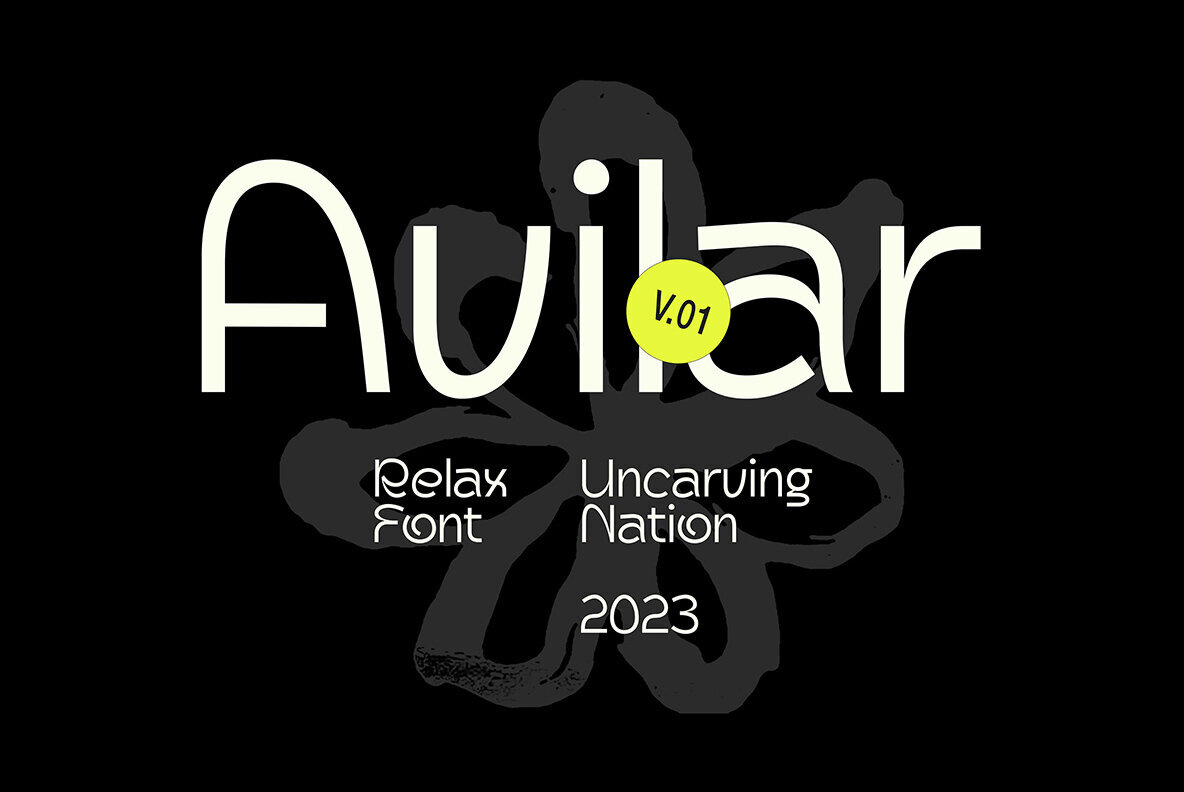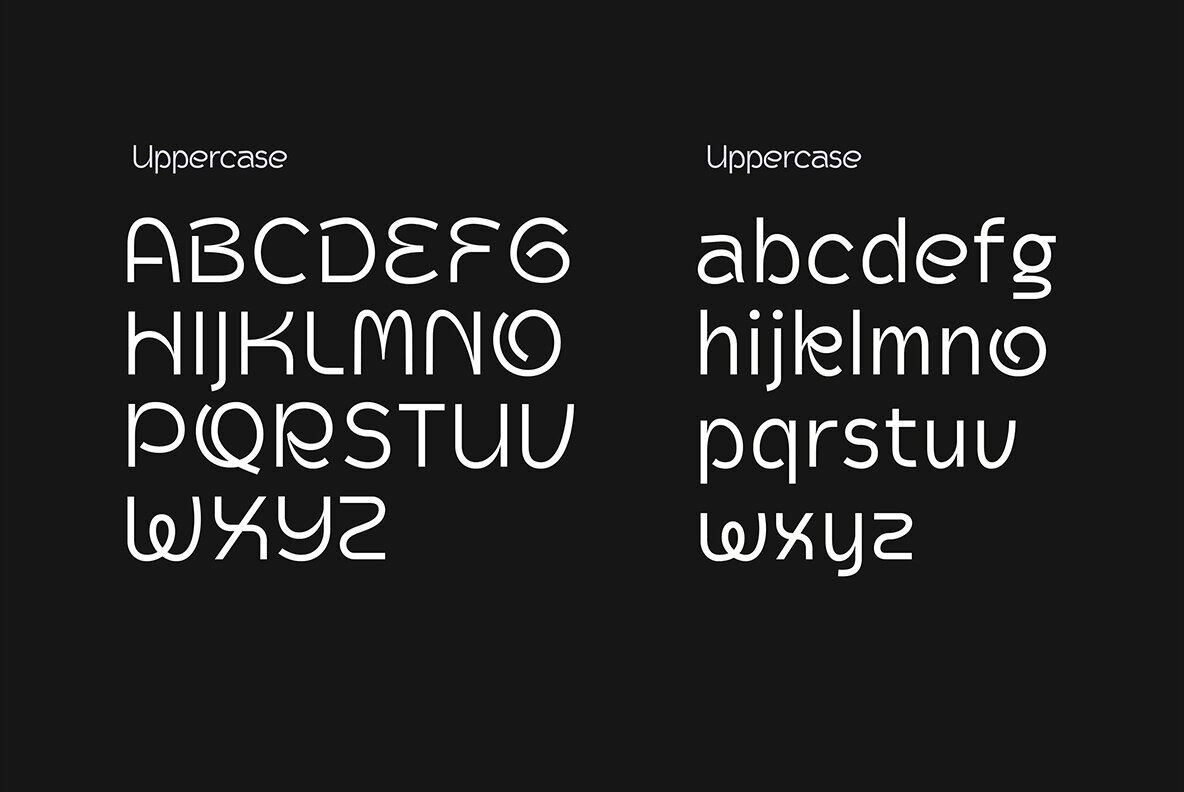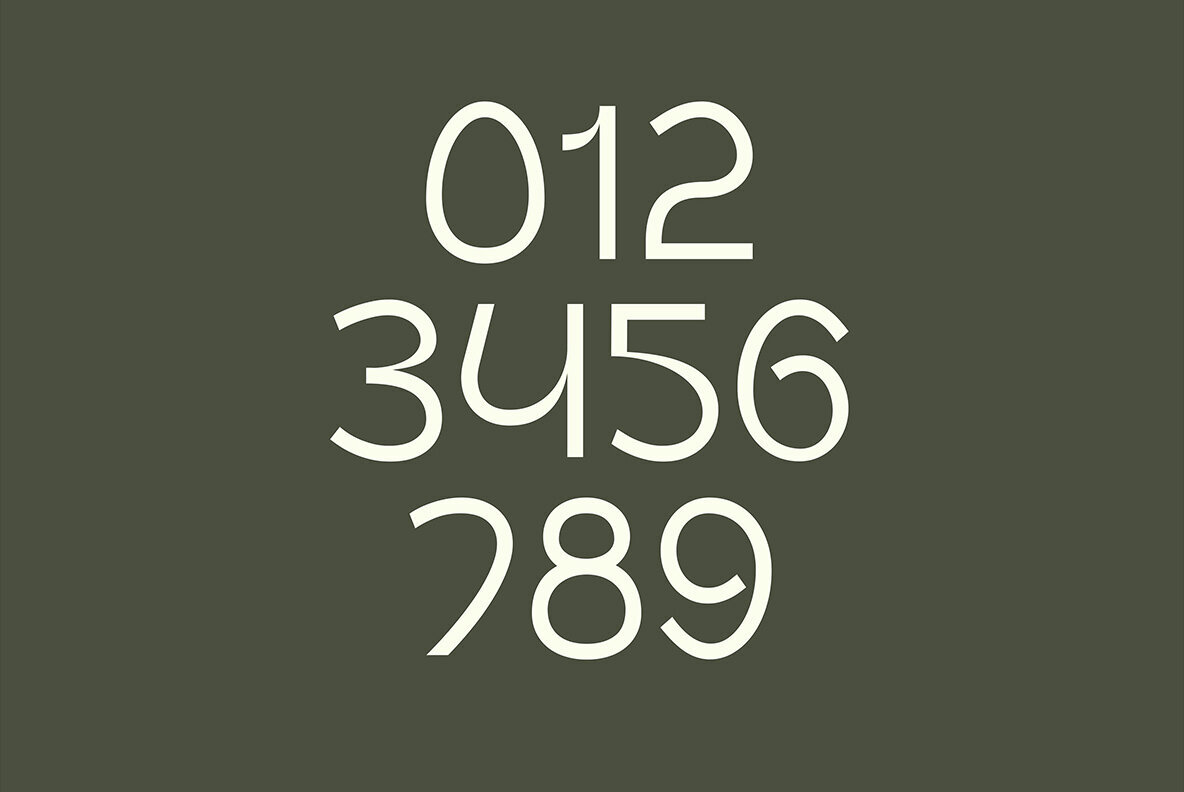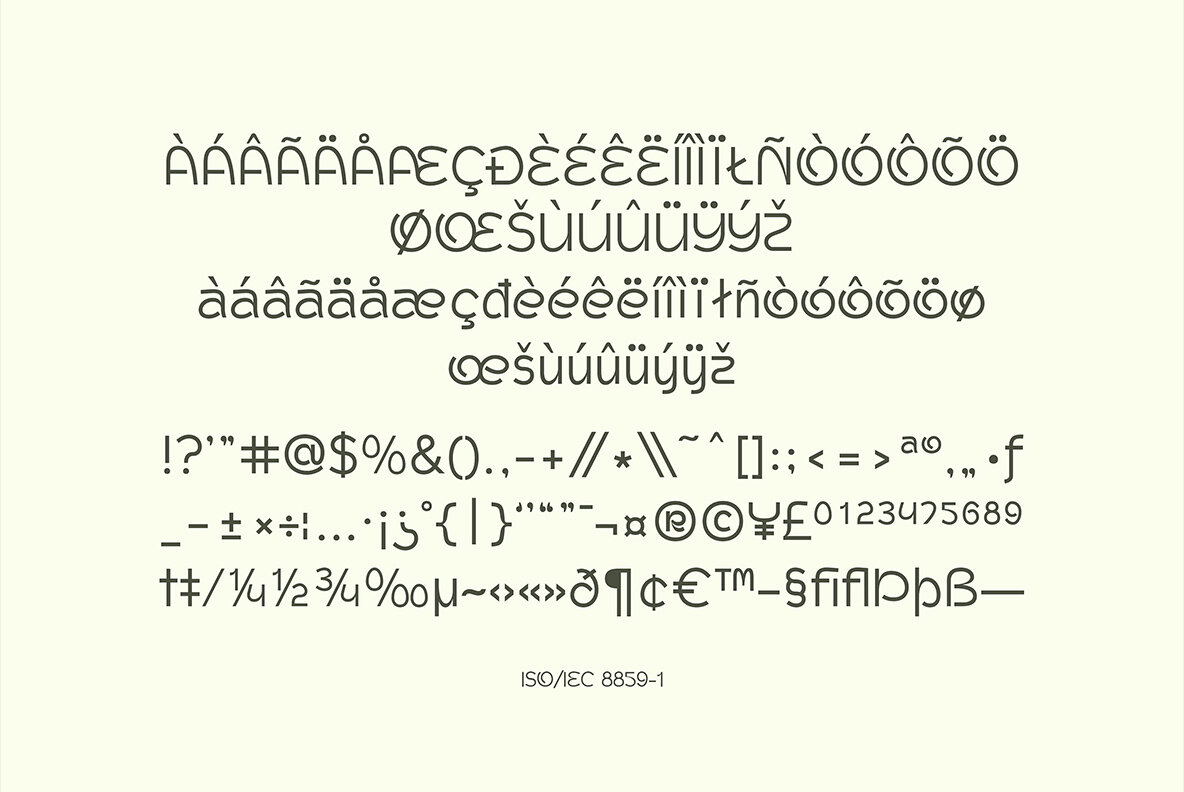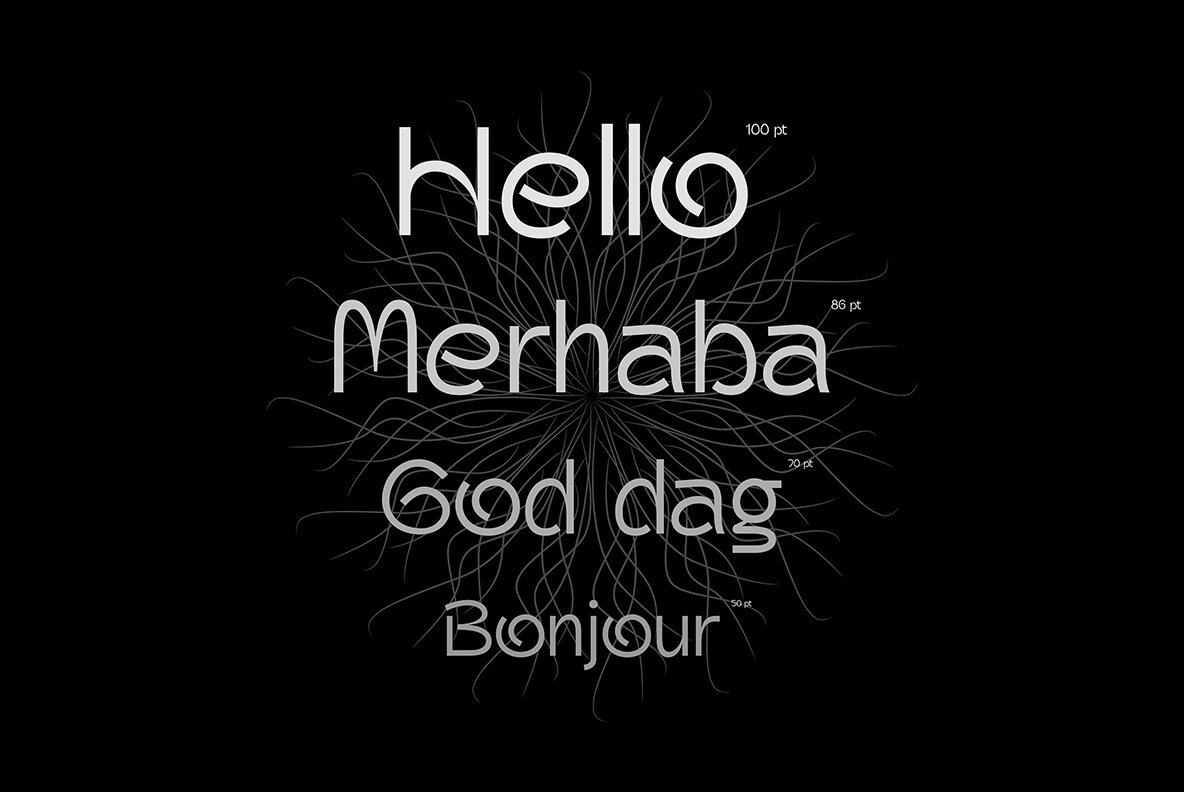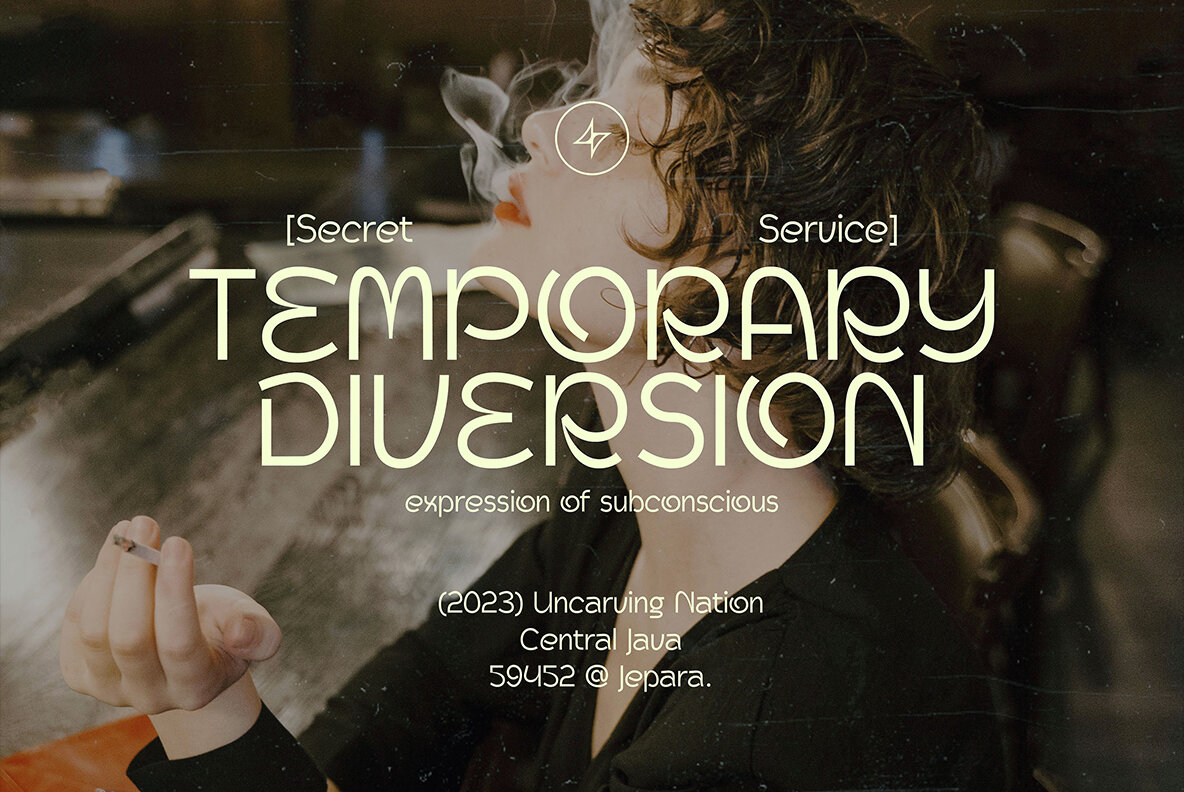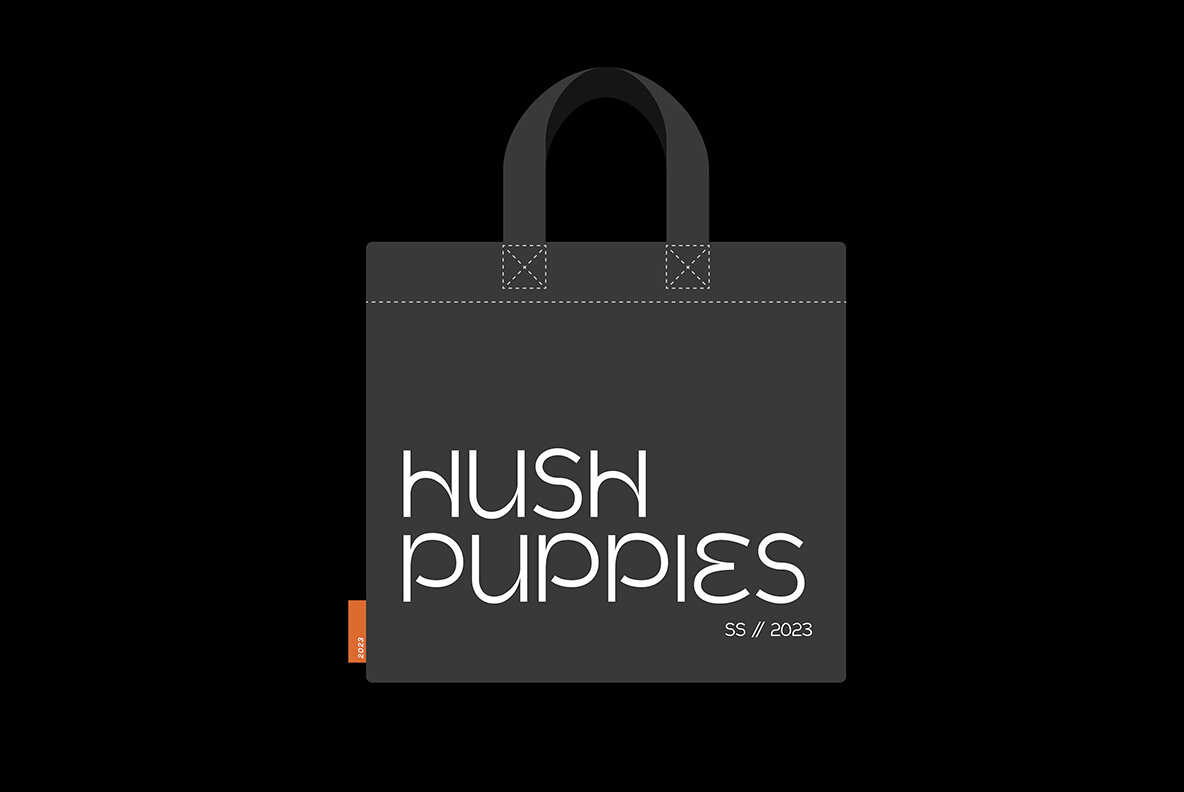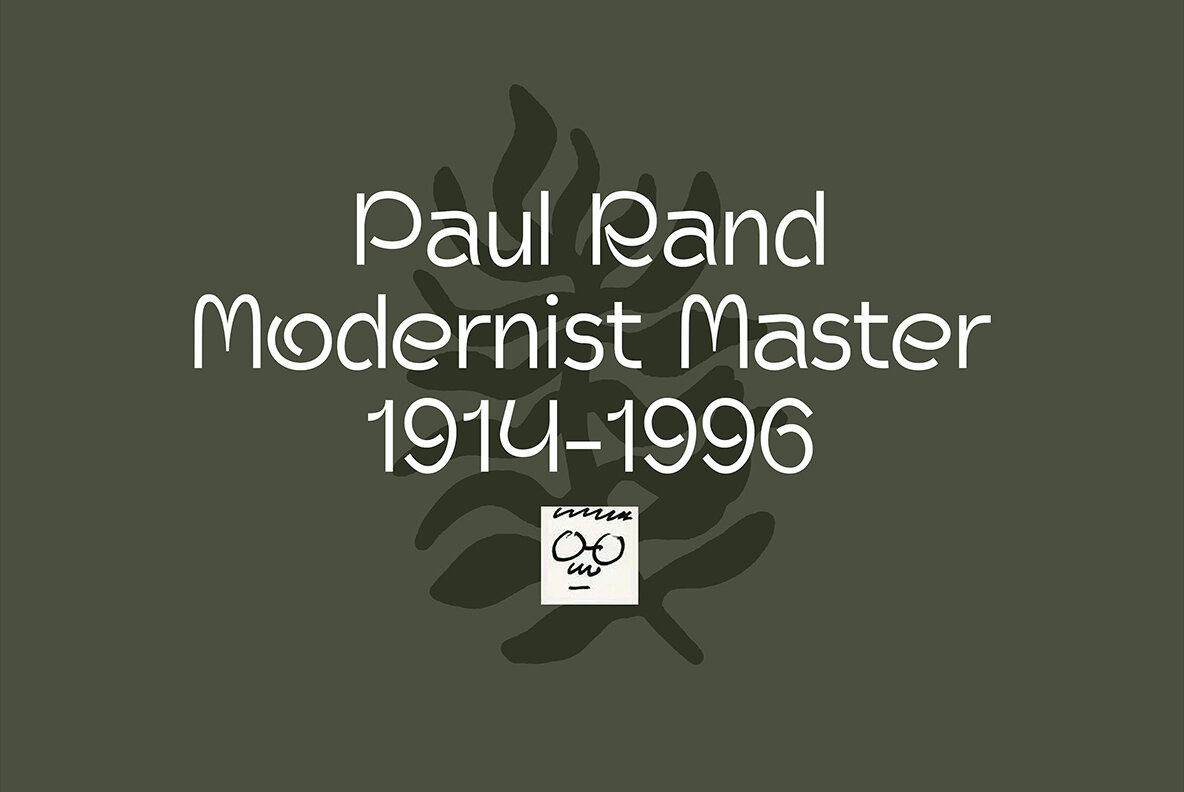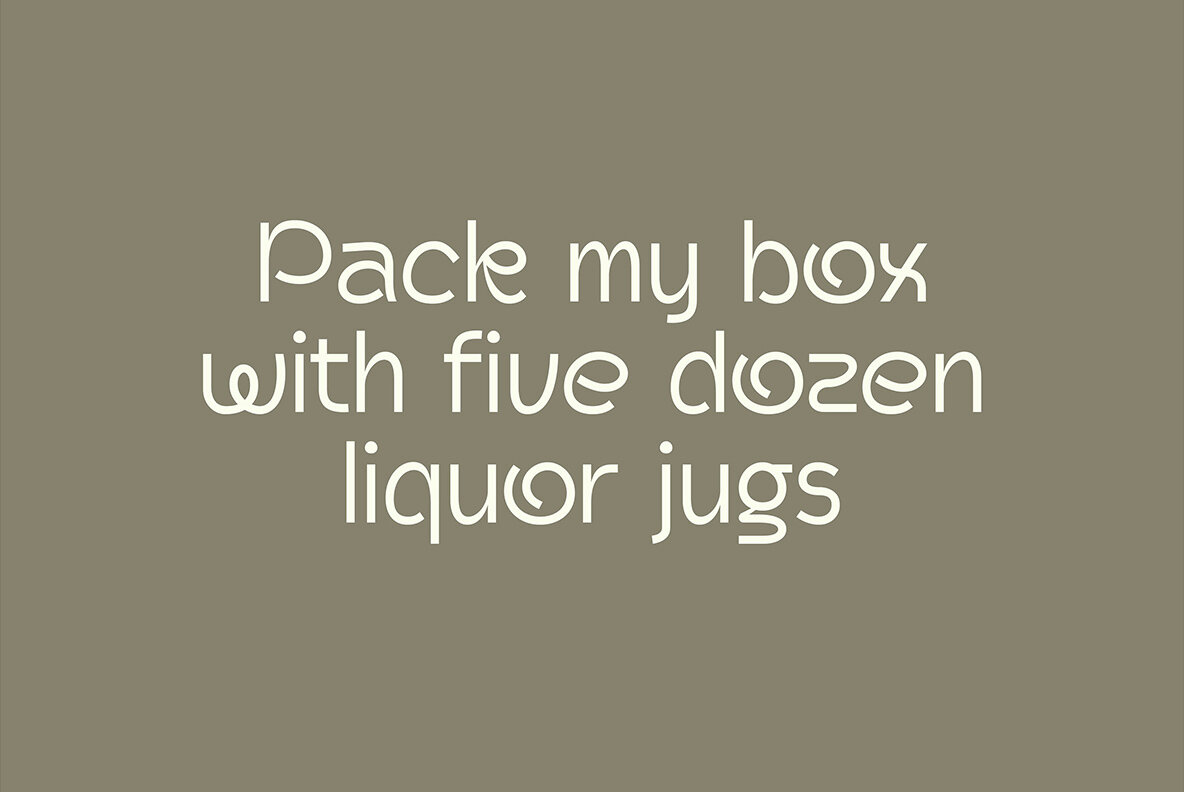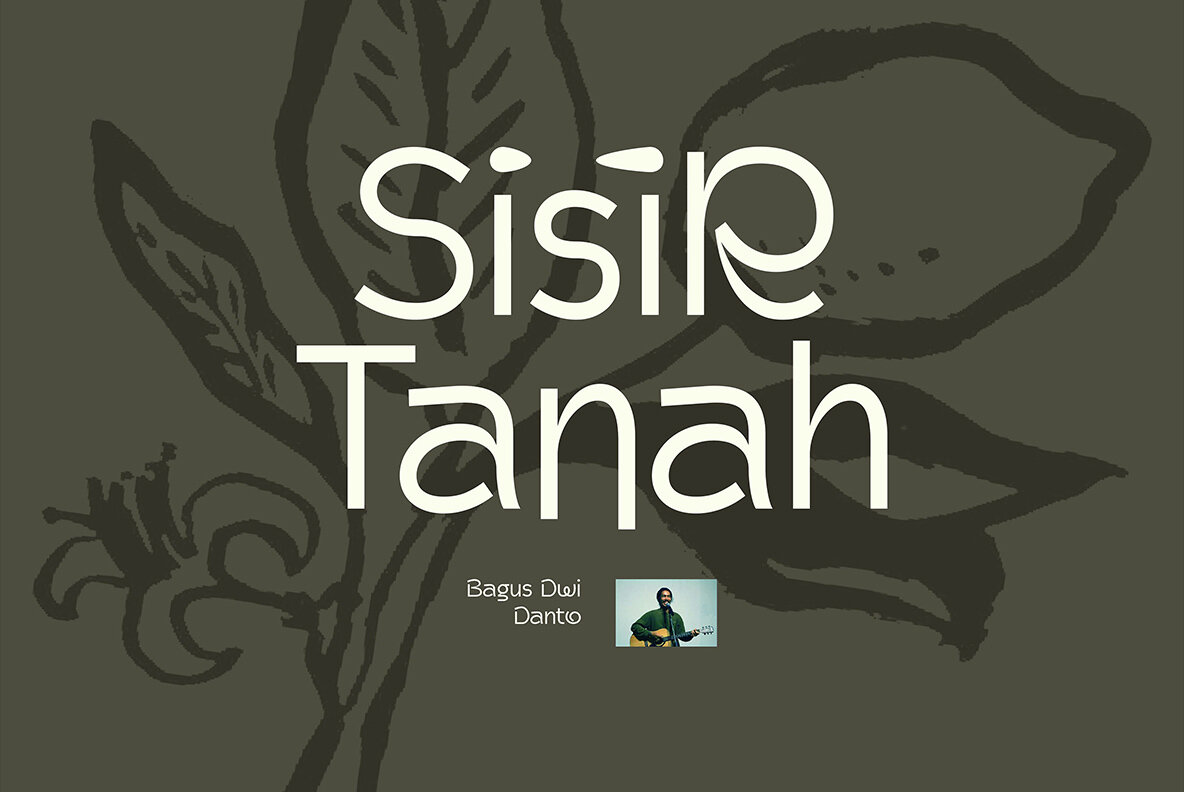
Avilar Font
Avilar is a contemporary sans serif font that masterfully blends modern design with a calming essence. Its clean curves and open forms ensure clarity and readability, making it ideal for projects where sophistication meets a human touch. The font’s relaxed rhythm and soft geometric shapes provide a gentle visual appeal, while subtle quirks in its design add warmth and character, setting it apart from the ordinary.Avilar: Embrace Modern Calm